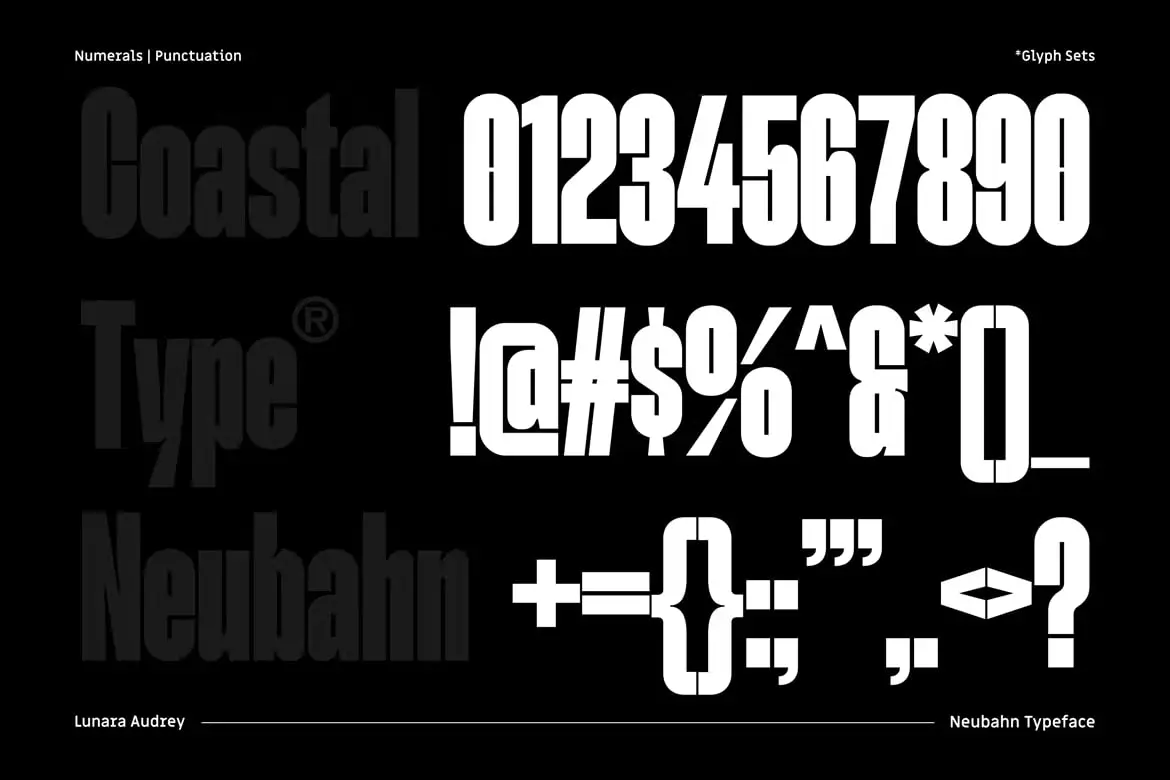
The Neubahn Font is a modern typeface that combines elegance with versatility, making it ideal for a variety of design projects. With its clean lines and contemporary aesthetic, Neubahn is perfect for branding, logos, web design, and print materials.
- Styles: Regular, Bold, Italic
- Weights: Light, Regular, Bold
- Ideal for headlines and body text in both digital and print formats.
- Use in branding projects to create a cohesive visual identity.
- Experiment with different weights to achieve the desired impact.